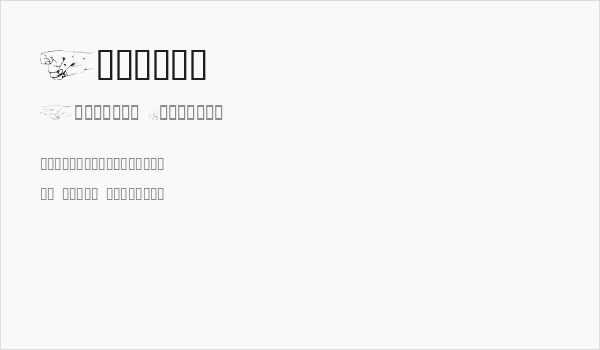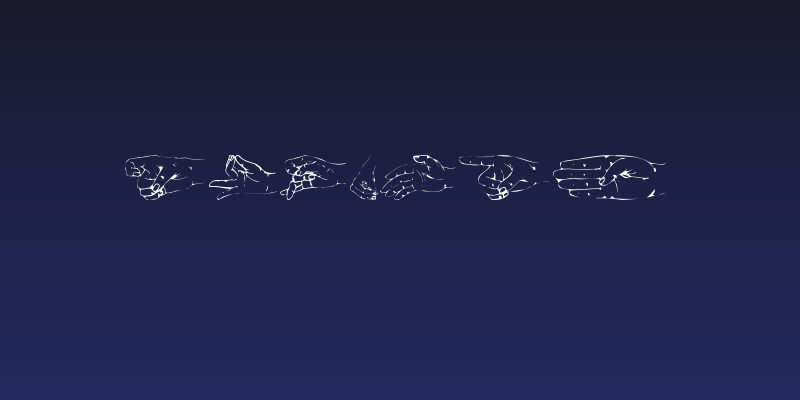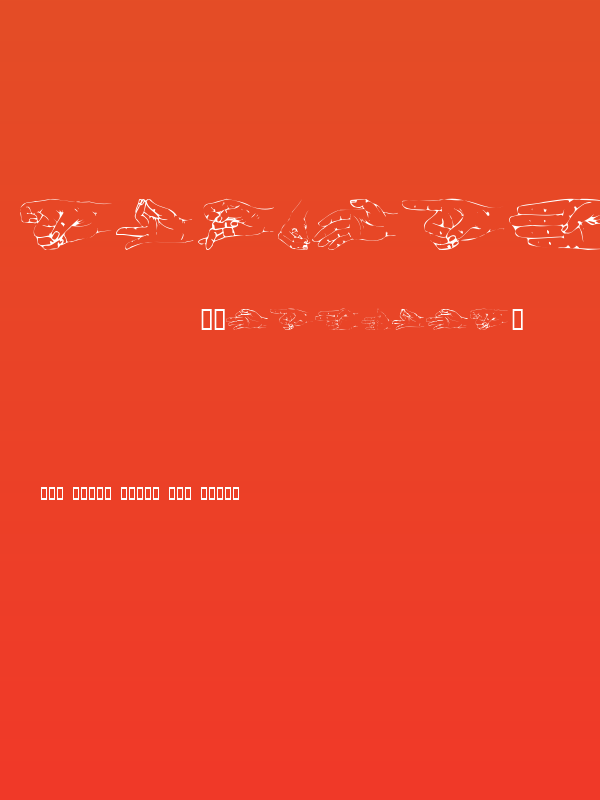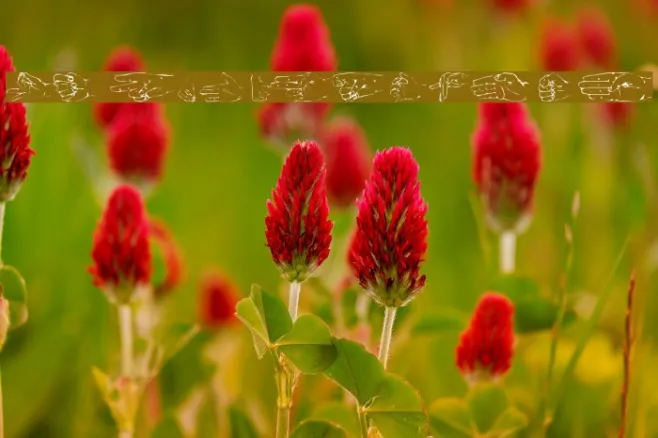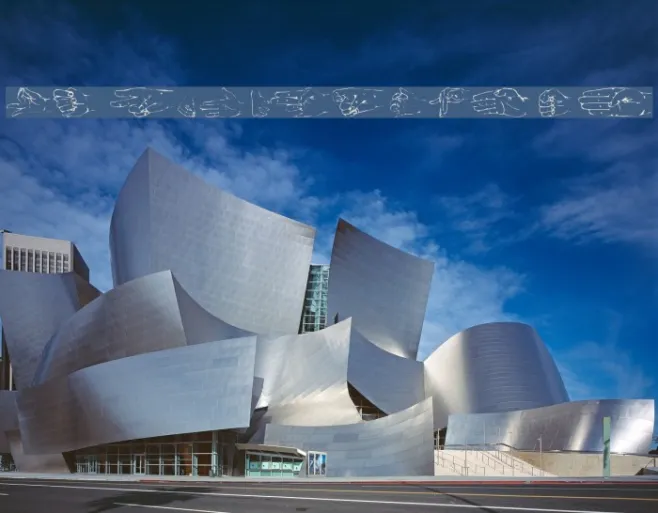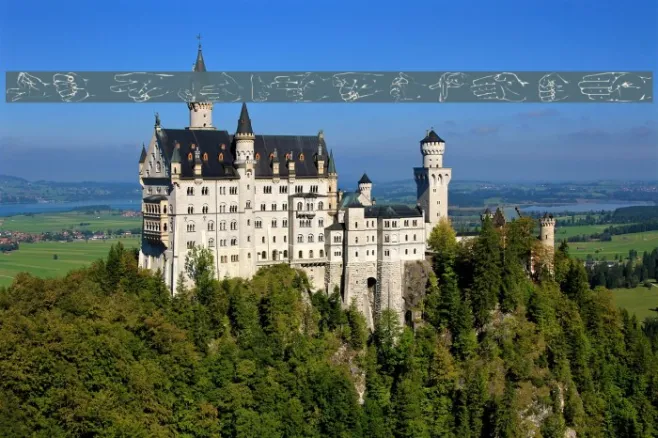
Handsom Font
Handsom Description
This is a unique and creative font where each character is represented by a hand gesture. The design captures the essence of sign language, with each letter and number depicted through detailed hand illustrations. The strokes are clean and precise, offering a clear representation of each gesture. This font stands out for its artistic approach, merging typography with visual art. The characters are well-defined, making it suitable for projects that aim to convey messages in a visually engaging manner.
| Overall Style | Artistic |
| Use Case | Logos, Educational materials, Artistic projects |
| Proposed Projects | Ideal for educational materials on sign language, artistic posters, and creative branding projects. |